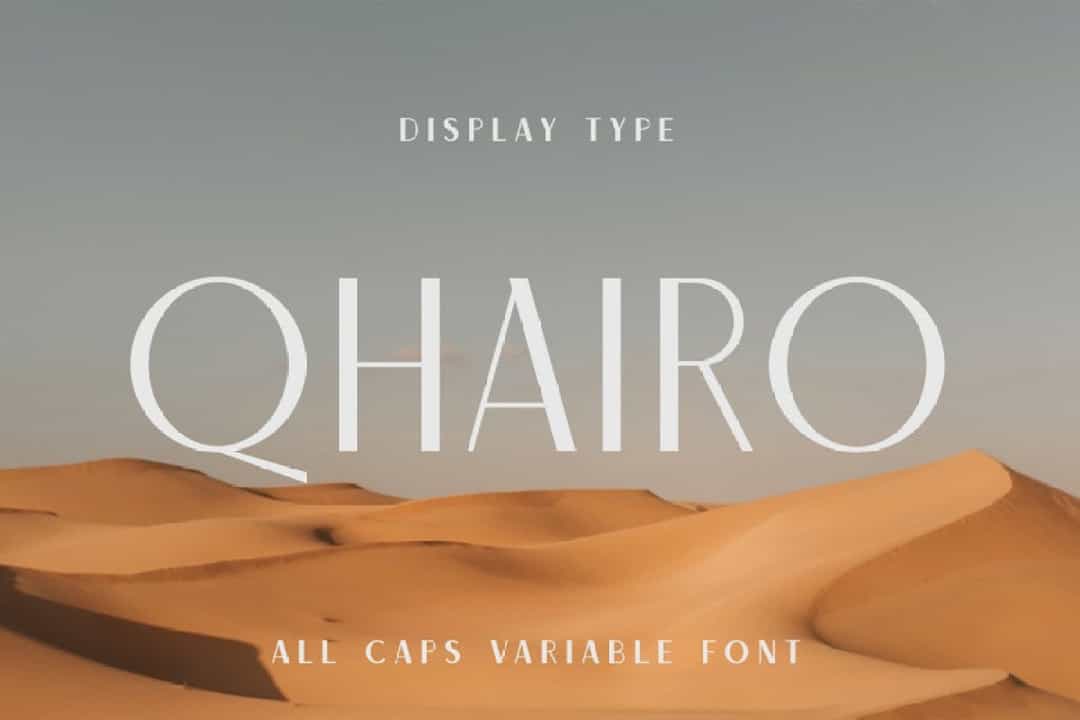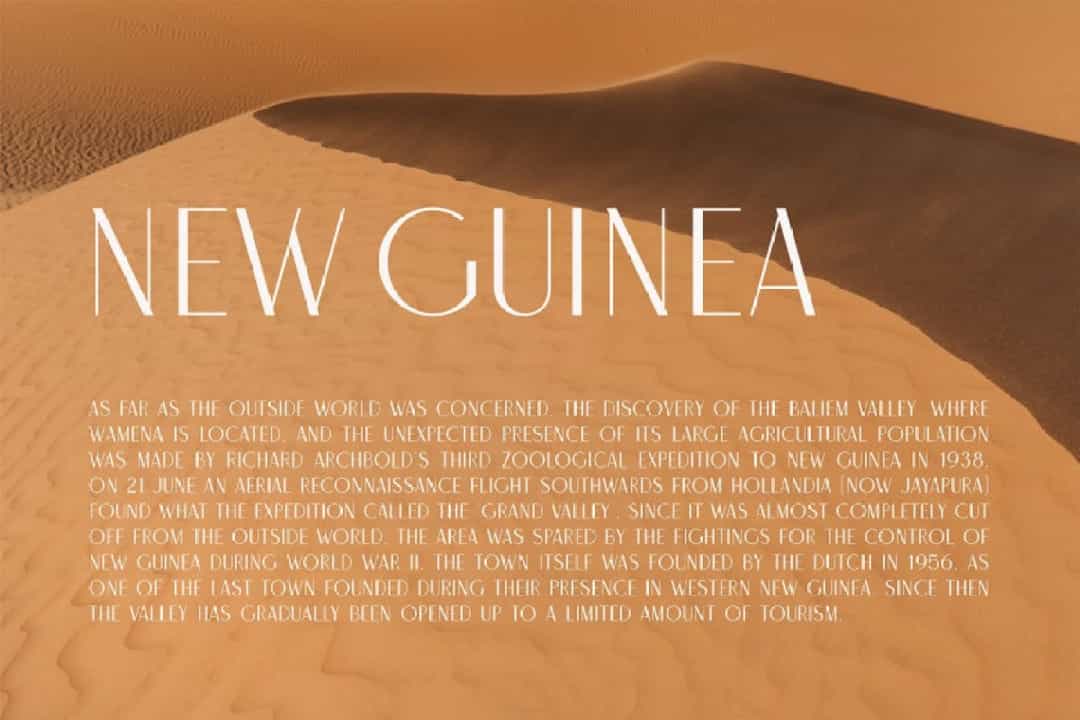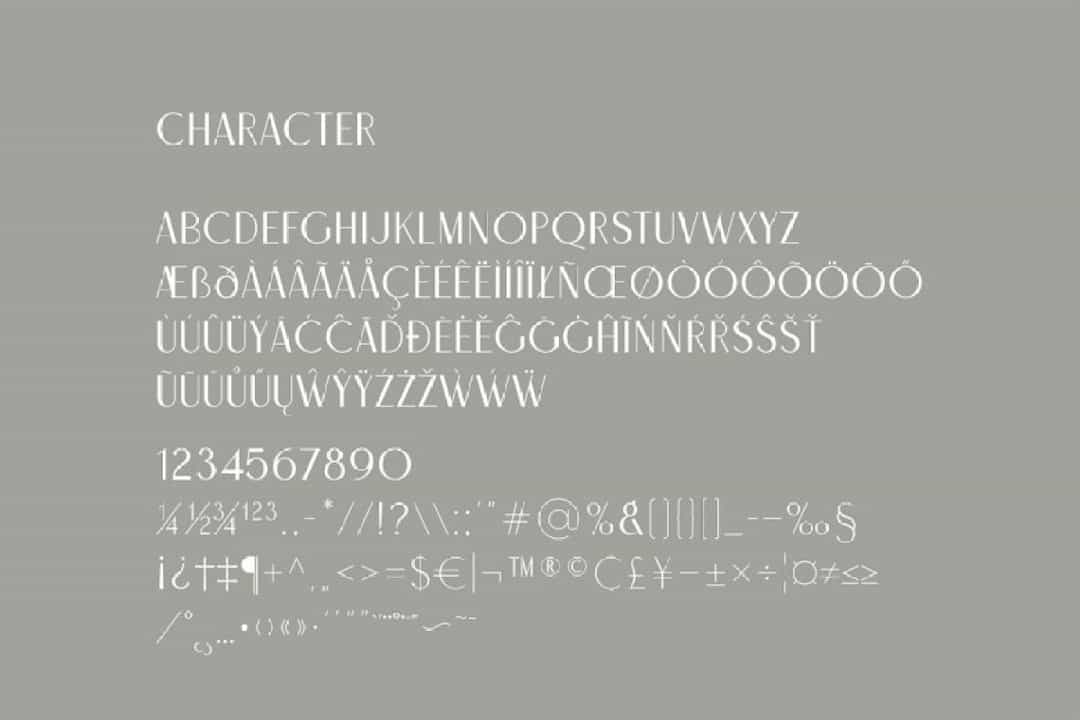
Qhairo is an all-caps variable font family that features accent characters for titles brochures articles as well as websites. It’s simple to use with letters that range from thin to thick for easy customization and use.